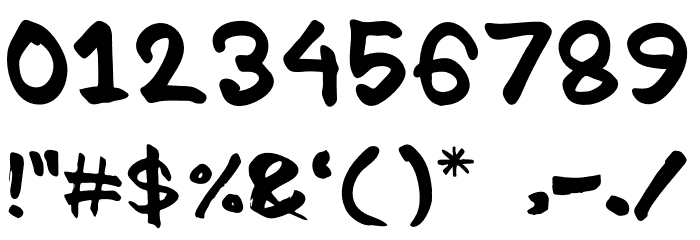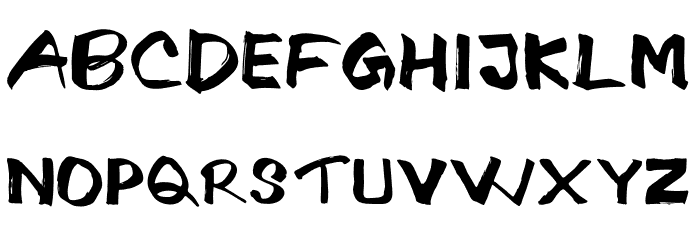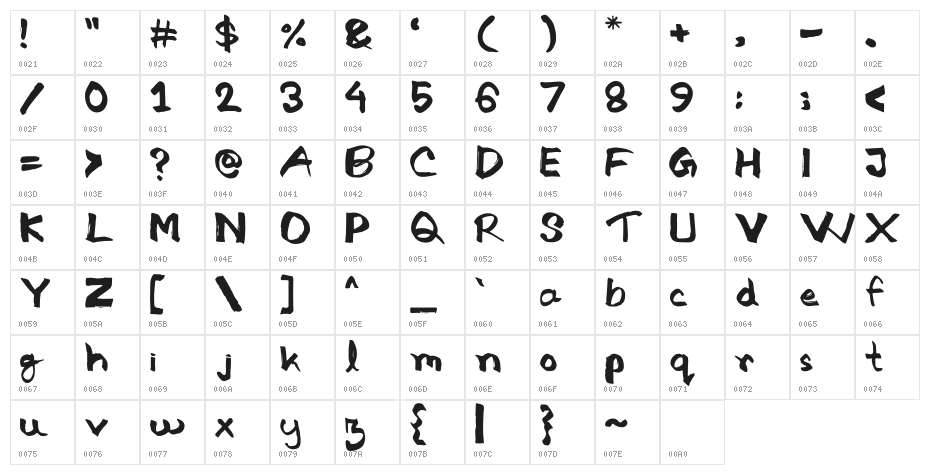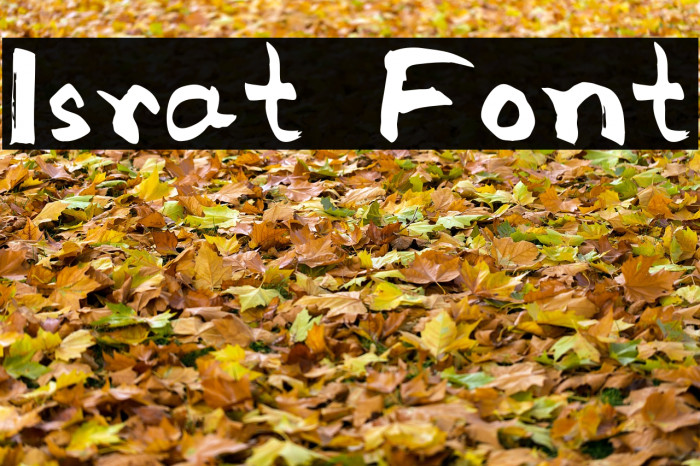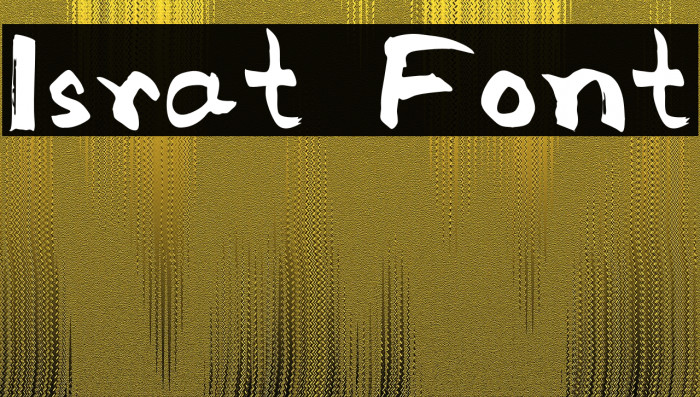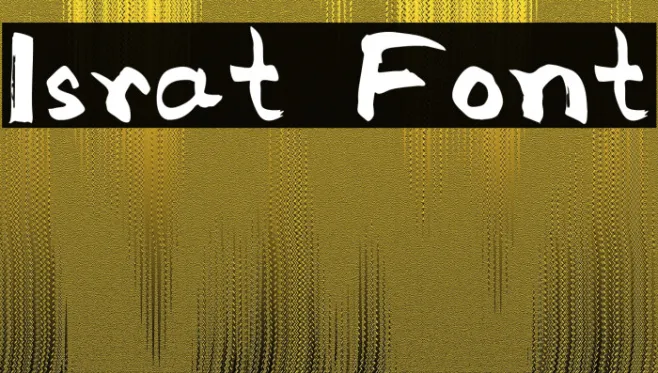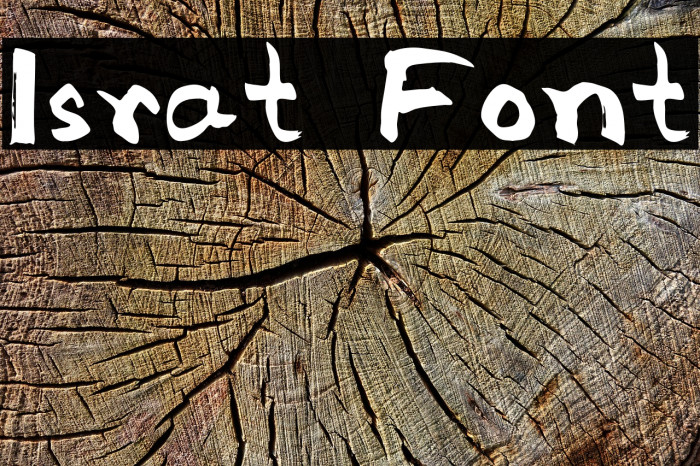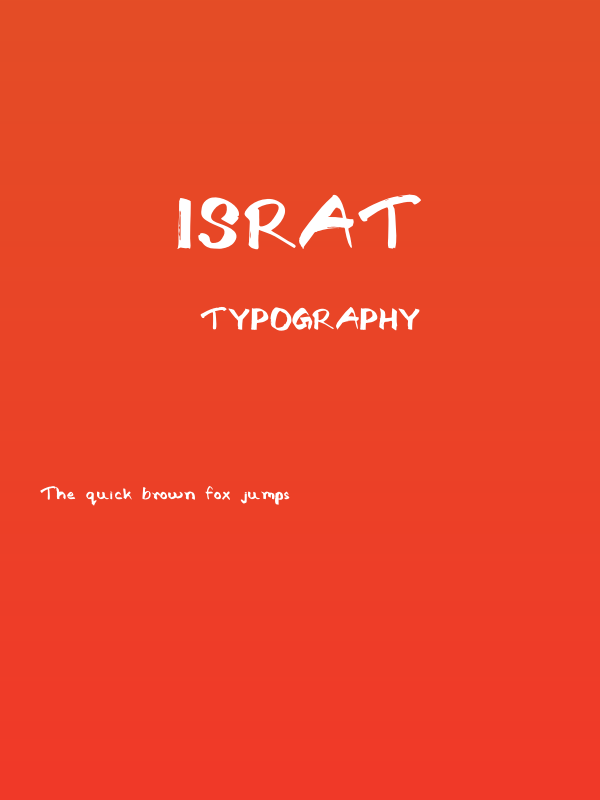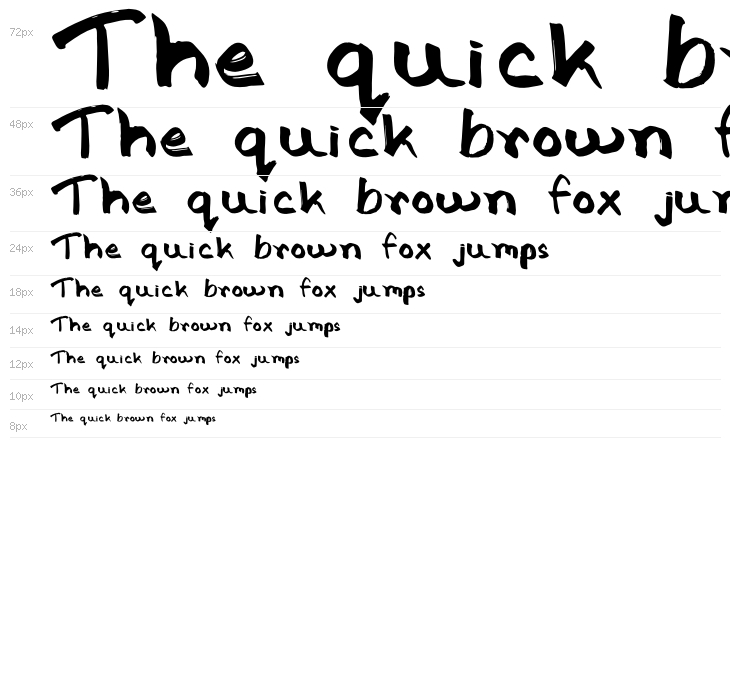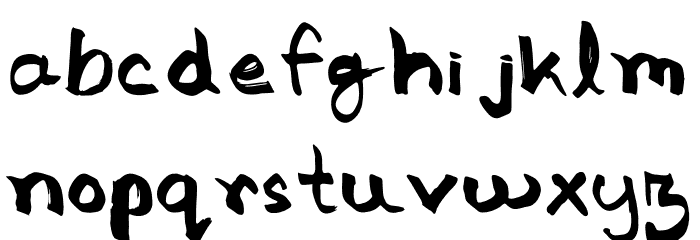
Israt Font
Israt Description
This font features a bold, expressive style with a hand-painted appearance. The strokes are uneven and dynamic, giving it a lively and artistic feel. The uppercase letters are bold and prominent, while the lowercase letters maintain a playful, casual look. The numbers and special characters follow the same energetic style, making the font suitable for creative and informal designs. The overall appearance is reminiscent of brush strokes, adding a personal touch to any project.
| Overall Style | Artistic, Expressive |
| Proposed Projects | Ideal for artistic projects, posters, branding, and any design requiring a personal, creative touch. |